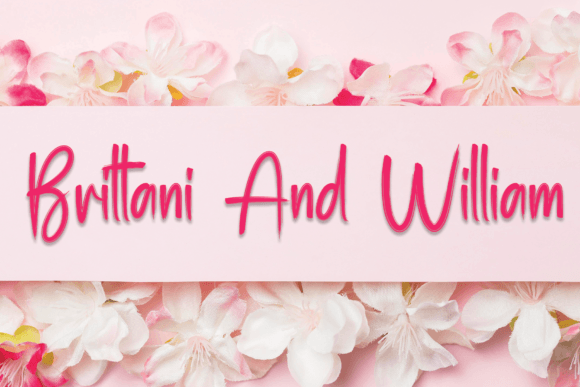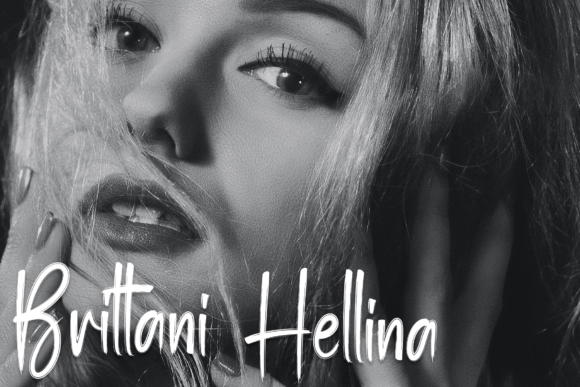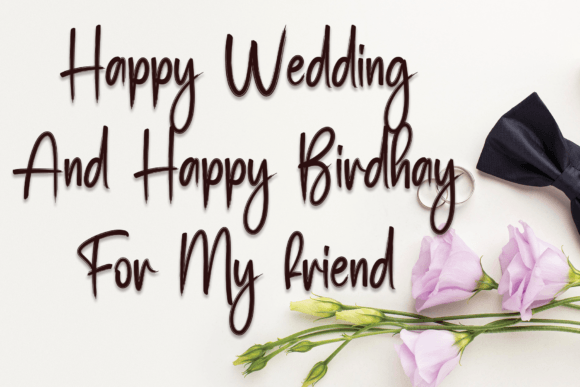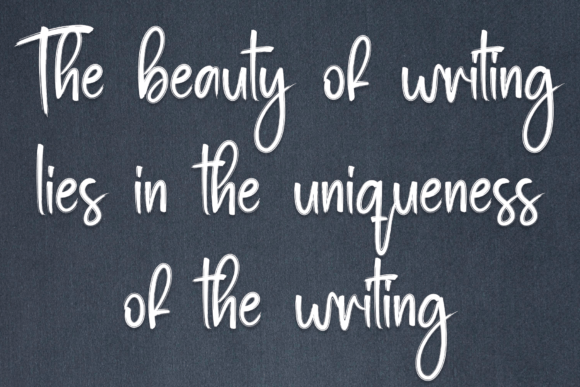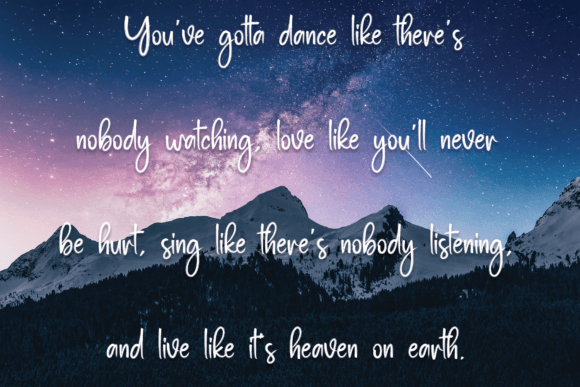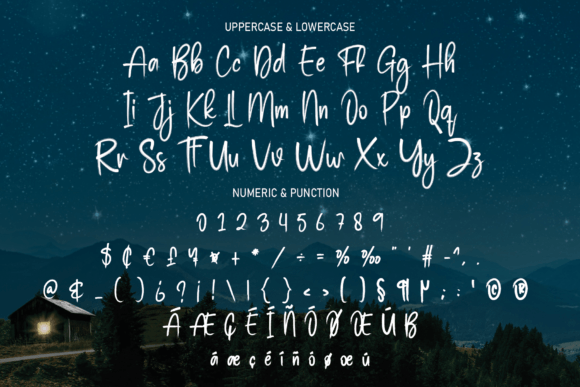
Introducing Christmas Starlight Font: The Perfect Addition to Your Holiday Projects
Are you looking for a font that captures the magic and wonder of the holiday season? Look no further than Christmas Starlight Font. This beautiful, handwritten font is perfect for adding a touch of festive flair to any project, from wall displays and wedding invitations to social media posts and product packaging.
What is Christmas Starlight Font?
Christmas Starlight Font is a unique and elegant font that features the latest style letters, carefully crafted to bring a touch of holiday cheer to your designs. With its whimsical and cursive feel, this font is perfect for creating eye-catching and memorable designs that will leave a lasting impression on your audience.
Uses for Christmas Starlight Font
Christmas Starlight Font is incredibly versatile and can be used for a wide range of projects, including:
• Wall displays: Create eye-catching holiday displays for your home or office with Christmas Starlight Font.
• Wedding invitations: Add a touch of elegance and sophistication to your wedding invitations with this beautiful font.
• Social media posts: Make your social media posts stand out with Christmas Starlight Font, perfect for creating festive and engaging content.
• Logos and advertisements: Use Christmas Starlight Font to create eye-catching logos and advertisements that will capture the attention of your target audience.
• Product packaging: Add a touch of holiday cheer to your product packaging with Christmas Starlight Font, perfect for creating limited-edition holiday products.
• Product designs: Use Christmas Starlight Font to create beautiful and unique product designs, from holiday-themed mugs and t-shirts to festive phone cases and more.
• Labels and photography: Add a touch of elegance and sophistication to your labels and photography with Christmas Starlight Font.
• Watermarks: Use Christmas Starlight Font to create beautiful and unique watermarks for your photos and designs.
• Invitations and stationery: Create beautiful and festive invitations and stationery with Christmas Starlight Font, perfect for holiday parties and events.
Why Choose Christmas Starlight Font?
So why choose Christmas Starlight Font for your holiday projects? Here are just a few reasons:
• Unique and elegant design: Christmas Starlight Font features a unique and elegant design that is sure to capture the attention of your audience.
• Whimsical and cursive feel: This font has a whimsical and cursive feel that is perfect for creating festive and engaging designs.
• Versatile: Christmas Starlight Font is incredibly versatile and can be used for a wide range of projects.
• Easy to use: This font is easy to use and can be easily integrated into your designs.
Tips for Using Christmas Starlight Font
Here are a few tips for using Christmas Starlight Font in your designs:
• Use it sparingly: Use Christmas Starlight Font sparingly to add a touch of festive flair to your designs.
• Pair it with other fonts: Pair Christmas Starlight Font with other fonts to create a unique and eye-catching design.
• Experiment with colors: Experiment with different colors to find the perfect combination for your design.
• Have fun: Most importantly, have fun and be creative with Christmas Starlight Font!
Christmas Starlight Font is the perfect addition to any holiday project. With its unique and elegant design, whimsical and cursive feel, and versatility, this font is sure to capture the attention of your audience and leave a lasting impression. Whether you’re a designer, crafter, or simply someone who loves the holiday season, Christmas Starlight Font is a must-have for any festive project.